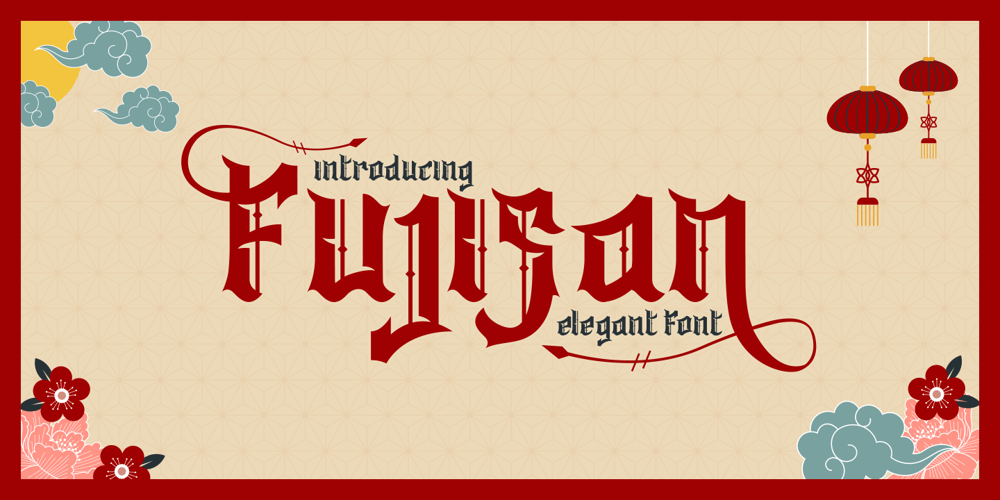
Fujisan
Fujisan font
Fujisan Font Family was designed by Putra Novembria Candra Kusuma and published by Putracetol. Fujisan contains 1 styles and family package options. Introducing Fujisan – Display Font: A typographic masterpiece that encapsulates the essence of Japan’s classic aesthetic. This elegant typeface is meticulously crafted to bring an air of sophistication and timeless charm to any project it graces. With bold strokes and distinctive character shapes, Fujisan exudes tradition while remaining versatile for modern design needs. Perfect for branding, crafting, or editorial designs, it infuses an Asian-inspired flair into your creative work.Fujisan Display Font shines across various applications – from creating impactful logos that demand attention to designing exquisite invitations that evoke cultural elegance. Its robust form makes it ideal for packaging and poster designs where clarity meets style, while its unique appeal adds character to book titles and magazine layouts. Whether enhancing your business identity or adding a touch of class to greeting cards and stickers, Fujisan is your go-to font for making a statement.